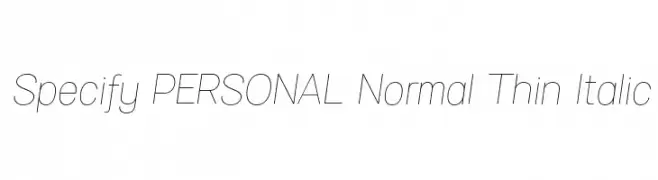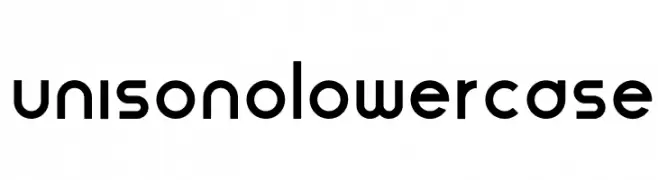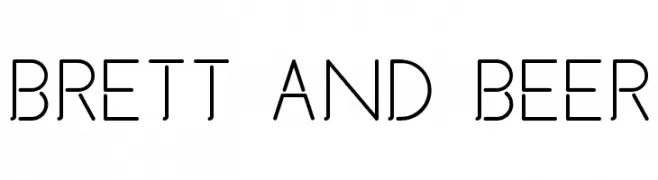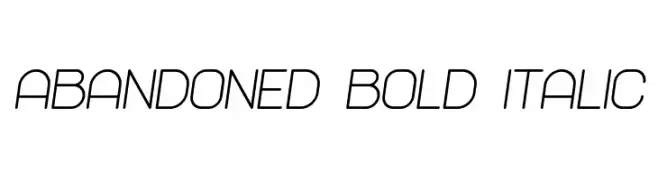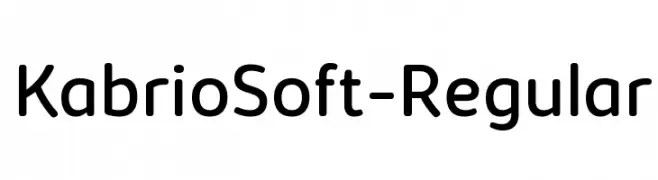
( Måns Grebäck - www.mansgreback.com )
A thin, italicized font with a modern and elegant design.
( Piero Unisono )
A modern geometric sans-serif font with rounded edges and uniform stroke width.
( Piratype )
A sleek, modern font with geometric and minimalistic design.
( Tannon Behunin )
A sleek, geometric font with thin lines and a modern, technical aesthetic.
( Thomas Breure - www.thomasbreure.com )
A bold, geometric font with a modern and impactful design.
( Tim Garrett - www.timgarrett.co.uk )
A modern, geometric font with clean lines and a minimalist style.
( Typodermic Fonts - Ray Larabie - www.typodermicfonts.com/ )
A modern, ultra-lightweight font with sleek, geometric lines and a minimalistic style.
( Vladimir Nikolic - www.coroflot.com/vladimirnikolic )
A sleek, modern italic font with consistent stroke width and rounded edges.
( Woodcutter - woodcutter Manero - www.woodcutter.es )
A bold decorative icon set with hippie and peace motifs.
( Zetafonts - www.zetafonts.com )
A modern sans-serif font with rounded edges and uniform stroke width.